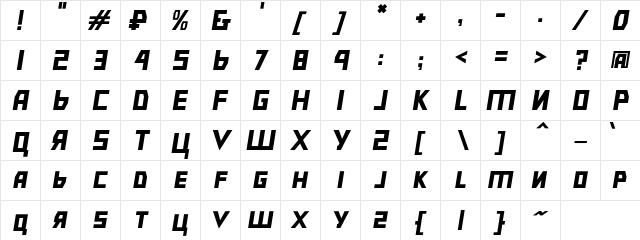
Bolshevik Obl
Design Context for Bolshevik Typeface
Bolshevik is a composed and adaptable typeface that performs quietly and consistently across a wide range of design contexts.
Pro Tip: Use Bolshevik in both headline and body roles to test its range before committing to a single application.